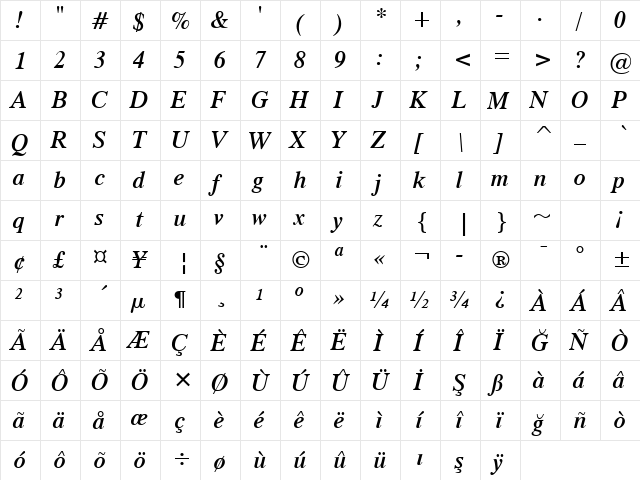
Dutch801 SeBd BT Semi-Bold Italic
Design Context for Dutch801 SeBd BT Typeface
Dutch801 SeBd BT is a composed and adaptable typeface that performs quietly and consistently across a wide range of design contexts. The dynamic lean of this cut emphasises speed and emphasis in any layout. The heavy weight commands attention and anchors typographic hierarchies.
Pro Tip: Use Dutch801 SeBd BT for emphasis, pull quotes, and subheadings where its slanted energy can add rhythm to the layout.